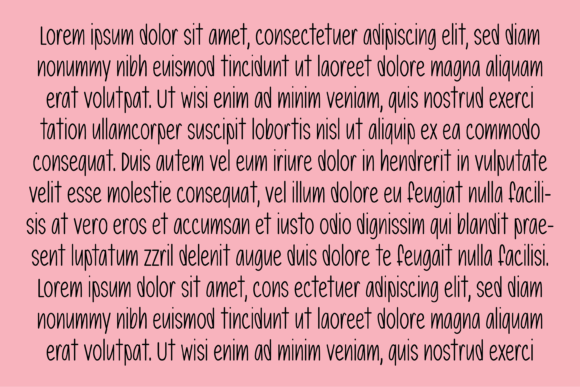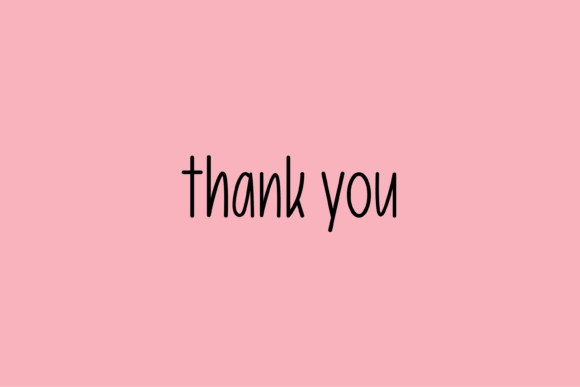
Introducing August Font: The Perfect Handwritten Font for Your Designs
Are you looking for a font that can add a touch of whimsy and friendliness to your designs? Look no further than August Font! This simple and elegant handwritten font is perfect for designers and crafters who want to create beautiful and eye-catching projects. In this article, we’ll take a closer look at August Font, its features, and how you can use it to elevate your designs.
What is August Font?
August Font is a handwritten font that exudes a sense of simplicity and friendliness. Its whimsical and quirky style makes it perfect for a wide range of design projects, from logos and wedding invitations to quotes, advertisements, and more. This font is designed to brighten up your designs and add a touch of personality to your work.
Key Features of August Font
So, what makes August Font so special? Here are some of its key features:
- Simple and Elegant: August Font has a simple and elegant design that makes it easy to read and use.
- Handwritten Style: This font has a handwritten style that gives it a personal and friendly touch.
- Whimsical and Quirky: August Font has a whimsical and quirky style that makes it perfect for designs that need a bit of personality.
- Versatile: This font is versatile and can be used for a wide range of design projects, from logos and wedding invitations to quotes and advertisements.
Uses of August Font
August Font is a versatile font that can be used for a wide range of design projects, including:
- Logos: August Font is perfect for creating unique and eye-catching logos that reflect your brand’s personality.
- Wedding Invitations: This font is ideal for creating beautiful and elegant wedding invitations that set the tone for the big day.
- Quotes: August Font is perfect for creating inspirational and motivational quotes that are visually appealing.
- Advertisements: This font can be used to create eye-catching advertisements that grab the attention of your target audience.
- Print and Magazines: August Font is suitable for use in print and magazines, adding a touch of elegance and sophistication to your designs.
Why Choose August Font?
So, why should you choose August Font for your designs? Here are some reasons:
- Unique and Eye-Catching: August Font is a unique and eye-catching font that will make your designs stand out from the crowd.
- Easy to Read: This font is easy to read, making it perfect for designs that require a clear and concise message.
- Versatile: August Font is versatile and can be used for a wide range of design projects.
- High-Quality: This font is of high quality, ensuring that your designs look professional and polished.
Tips for Using August Font
Here are some tips for using August Font in your designs:
- Use it with Confidence: August Font is a confident and elegant font, so use it with confidence in your designs.
- Experiment with Different Sizes: Experiment with different sizes to find the perfect fit for your design.
- Pair it with Other Fonts: August Font can be paired with other fonts to create a unique and visually appealing design.
- Use it in Color: This font looks great in color, so don’t be afraid to experiment with different colors to add some personality to your design.
| Font Name | August Font |
| Author | Woracado |
August Font is a simple and elegant handwritten font that is perfect for designers and crafters who want to add a touch of whimsy and friendliness to their designs. Its versatility, readability, and high-quality design make it an excellent choice for a wide range of design projects. Whether you’re creating logos, wedding invitations, quotes, or advertisements, August Font is sure to brighten up your designs and add a touch of personality. So, why not give it a try and see the amazing results for yourself?